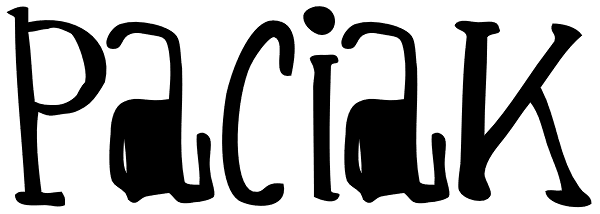
Paciak
Paciak is a hand-drawn dynamic font that provides you an opportunity to create fresh and intricate design projects. It is loaded with handy features including-alternate characters for all numbers and letters (it has mixed upper and lowercase...